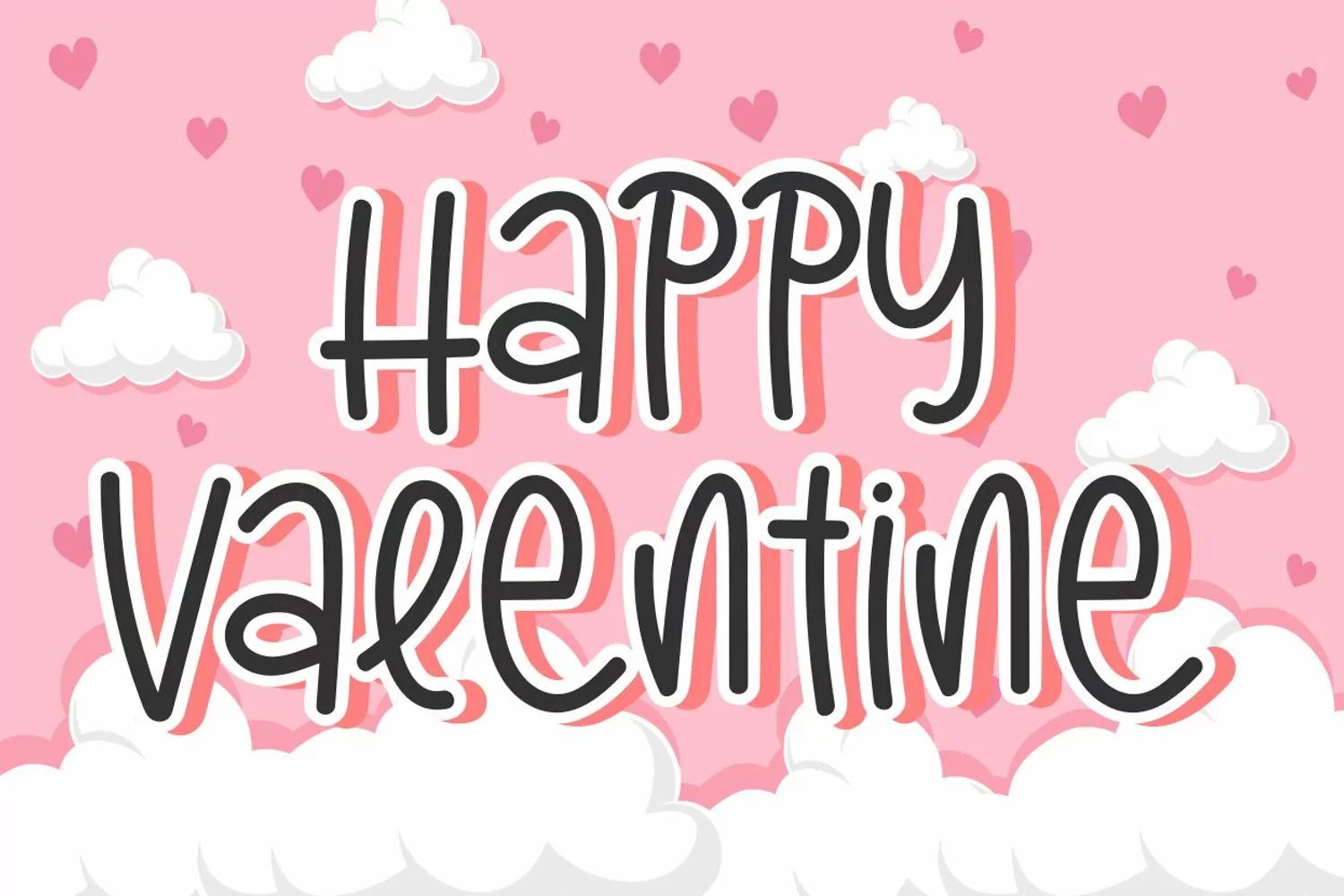
Dream Succes a new fresh & simple handwritten font style! So beautiful on invitation like greeting cards, branding materials, business cards, quotes, posters, and more!!